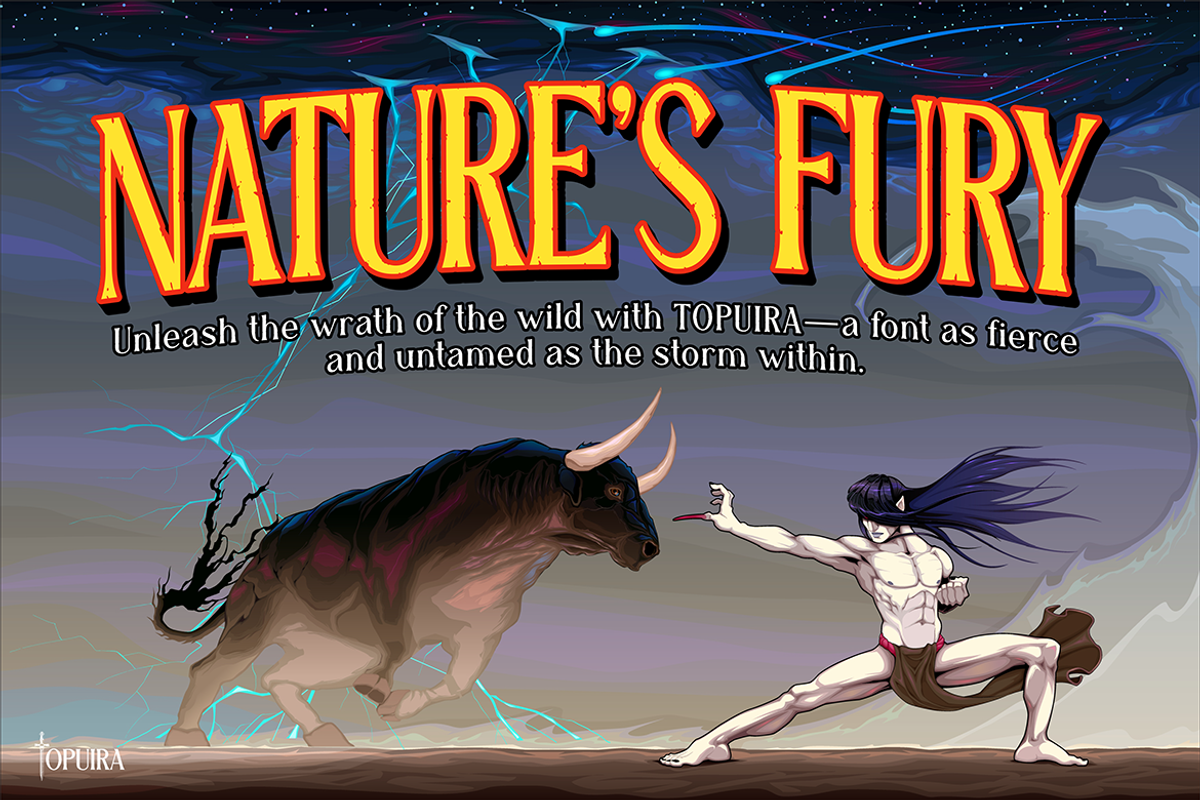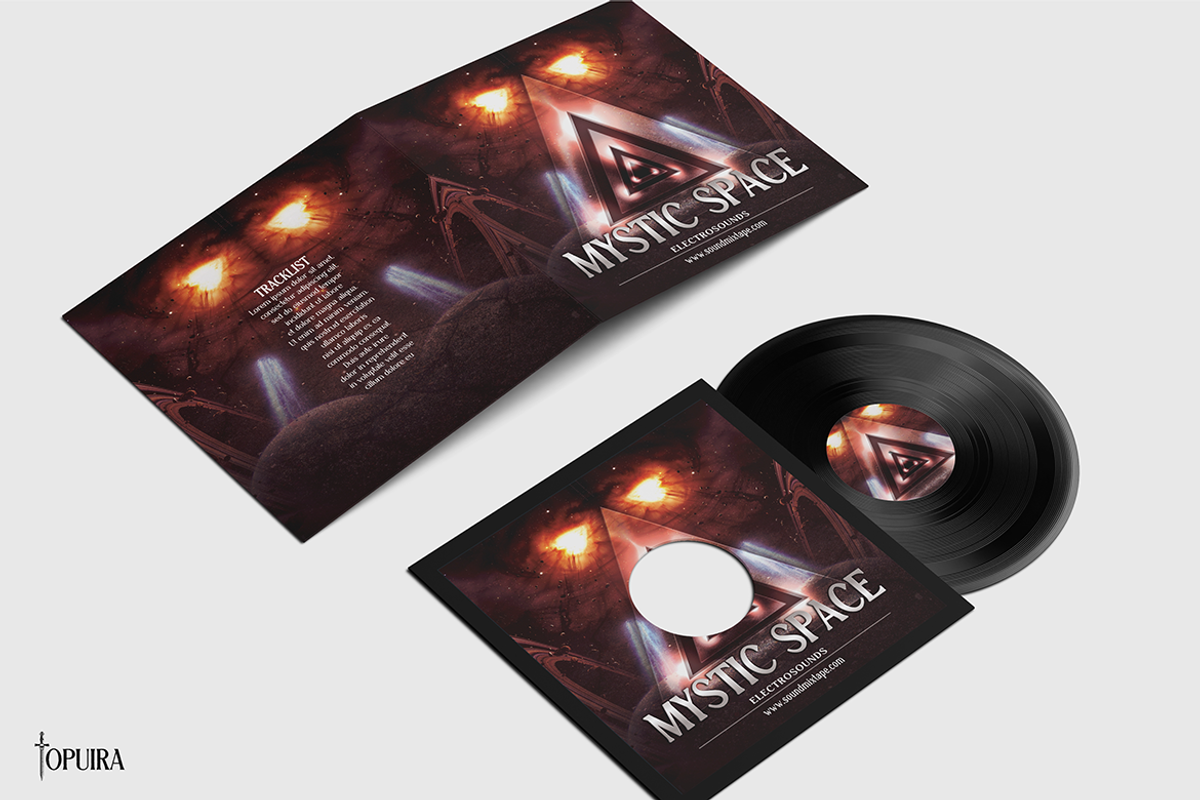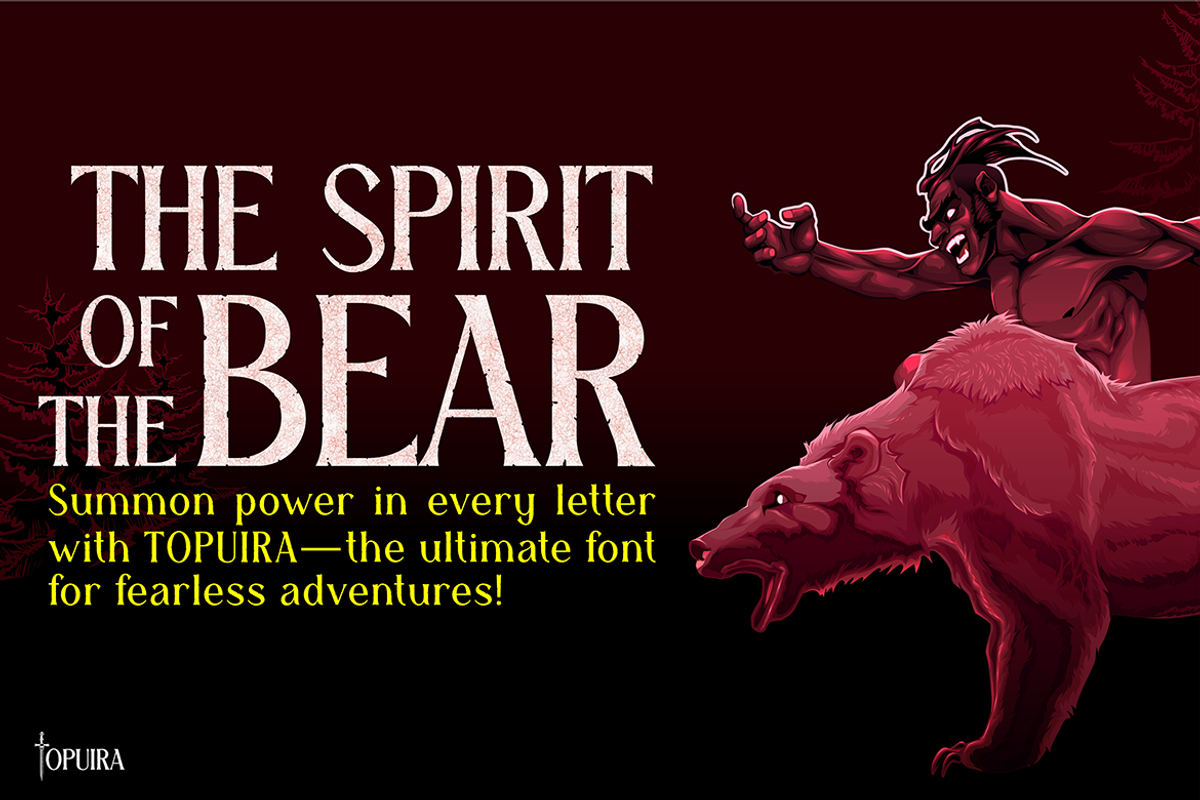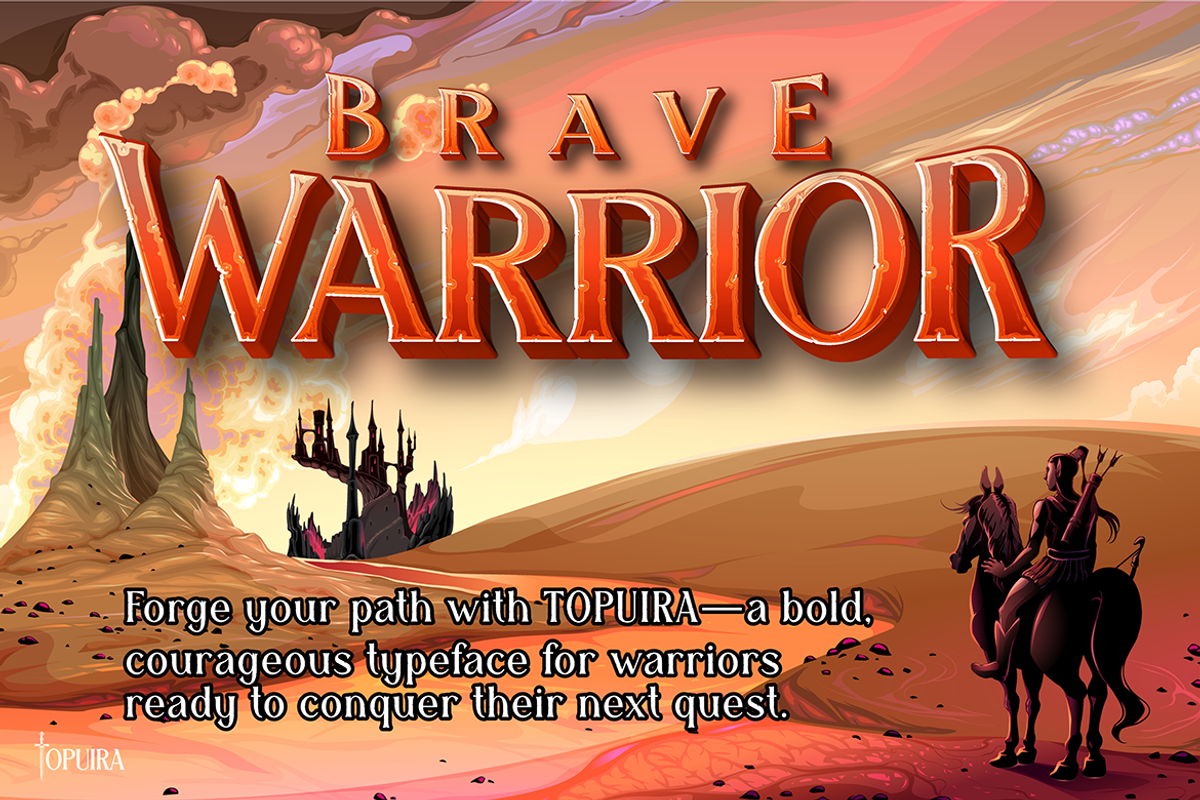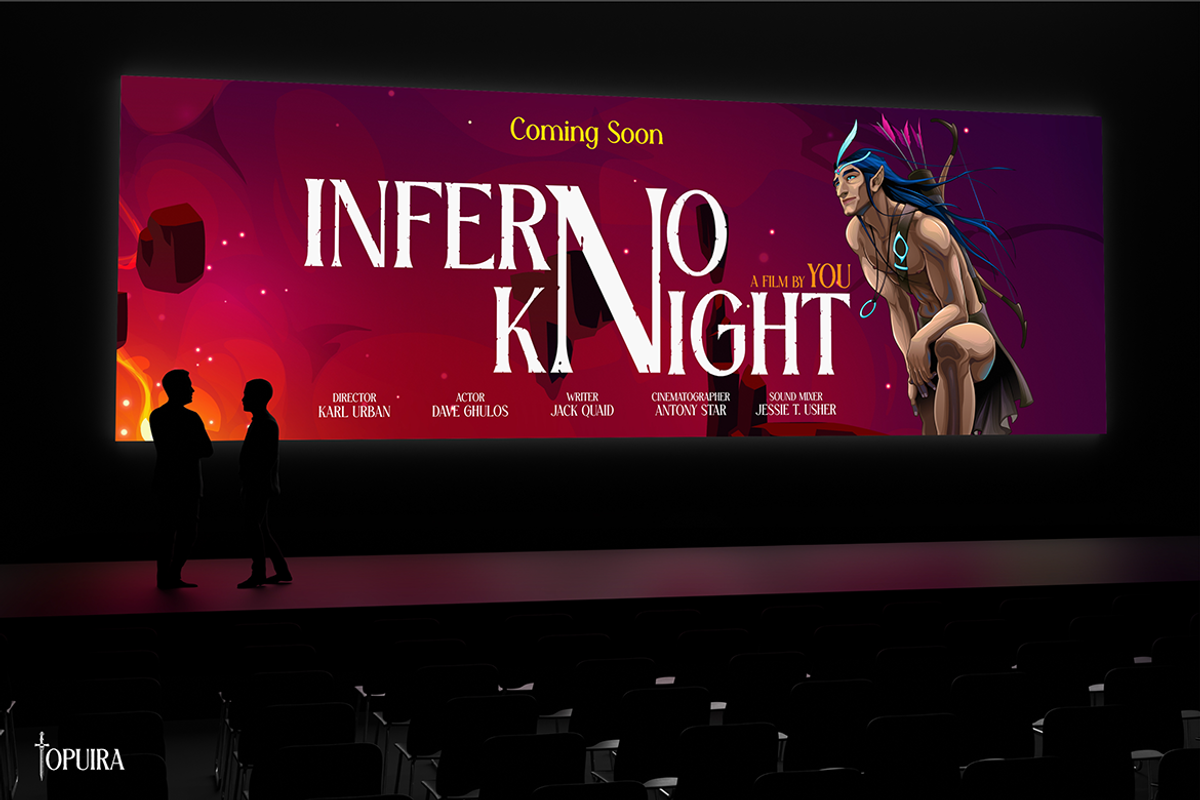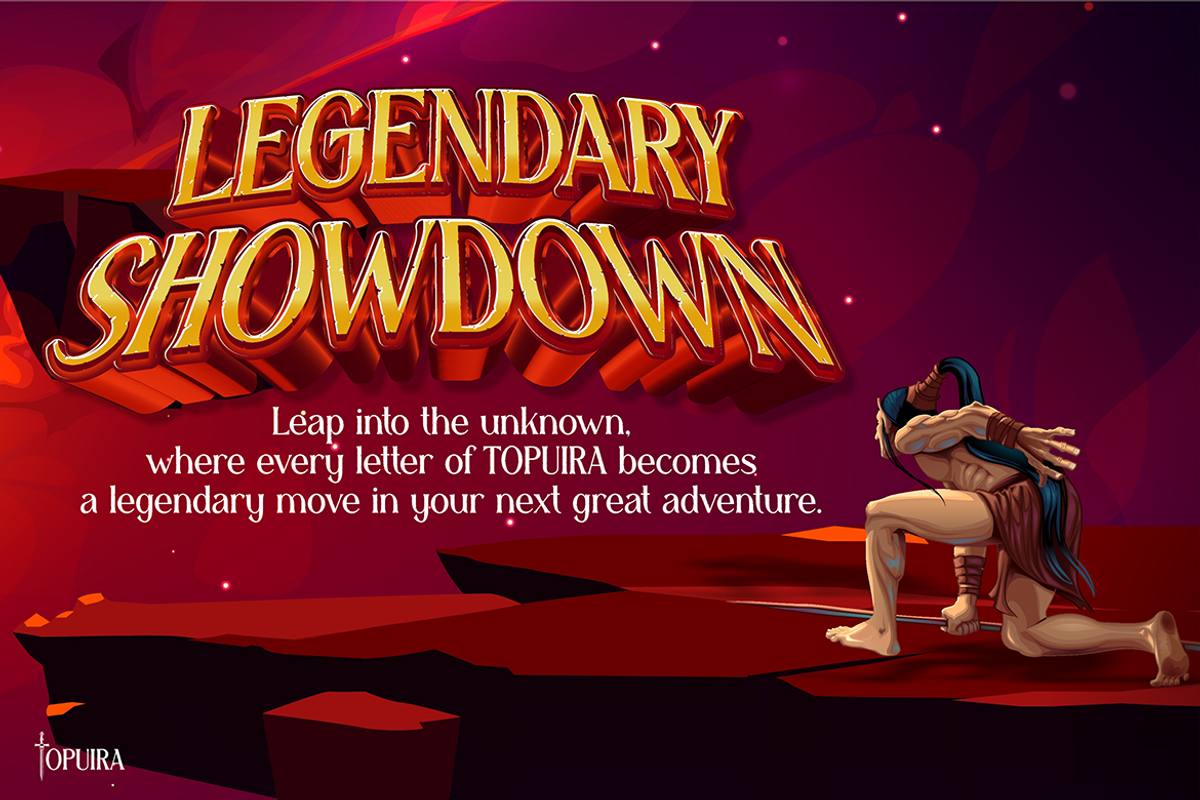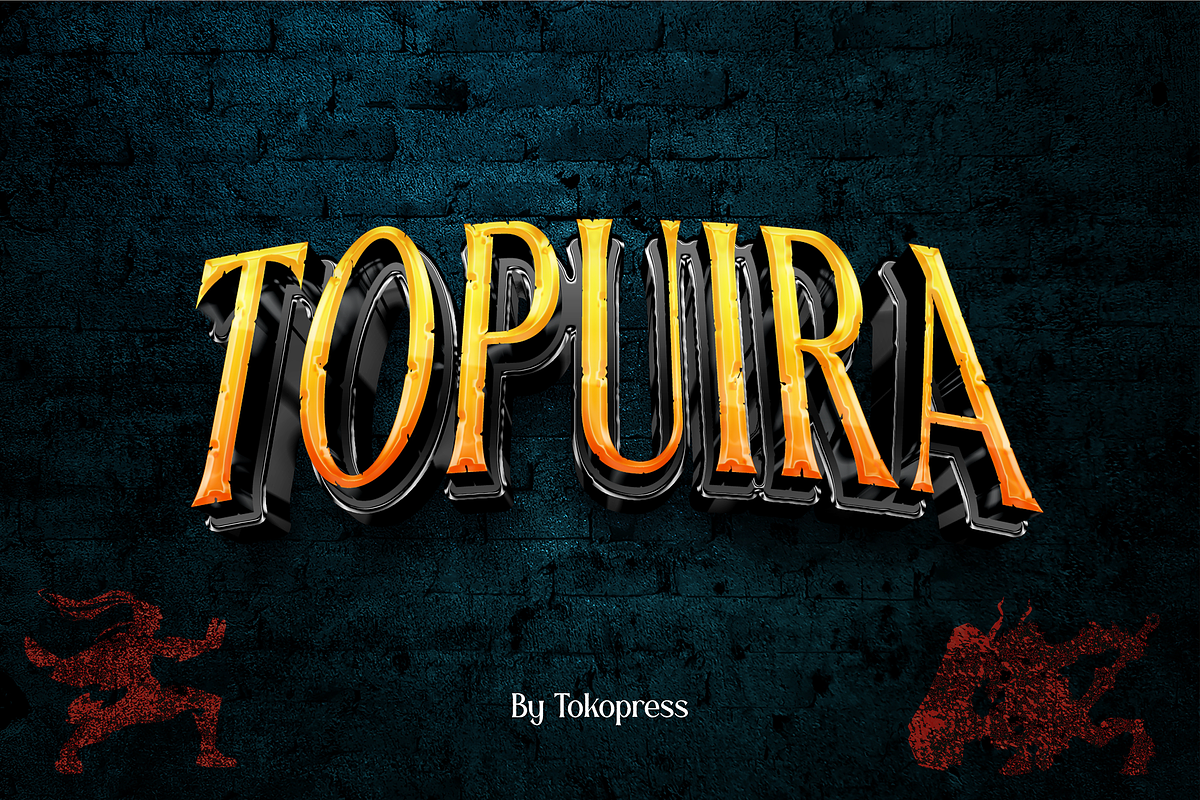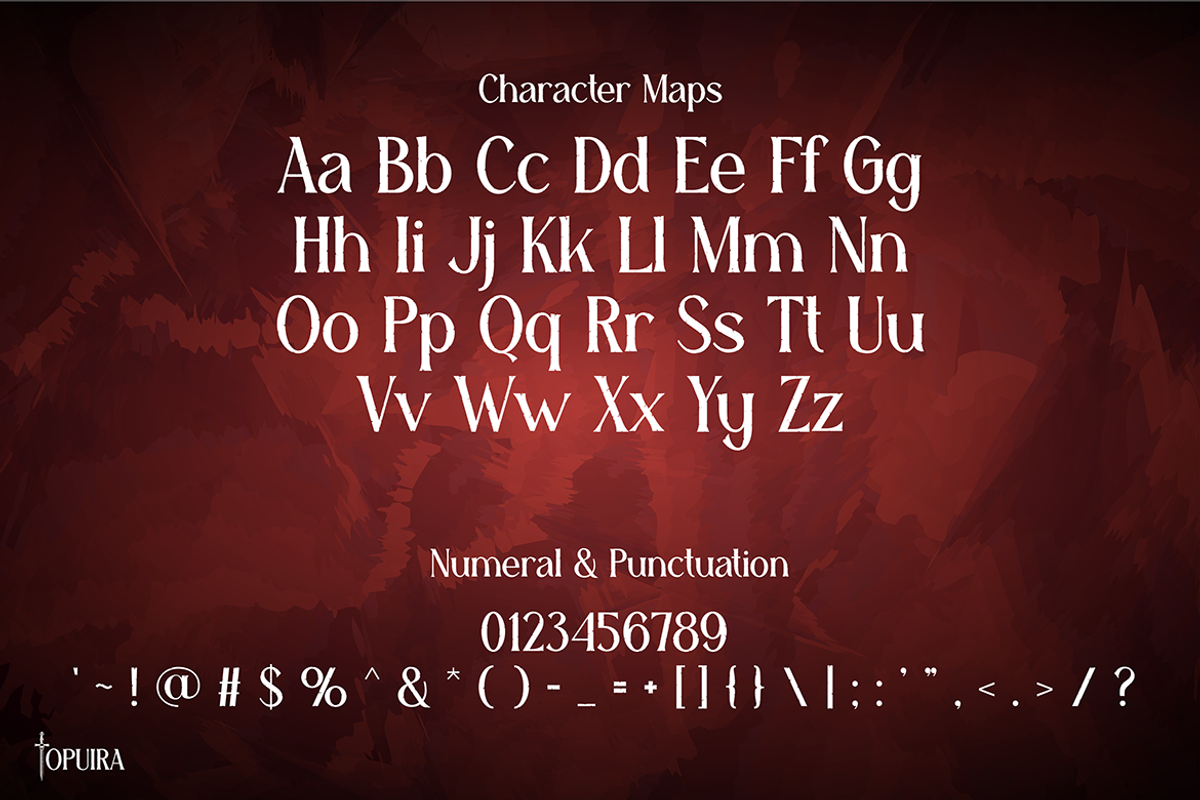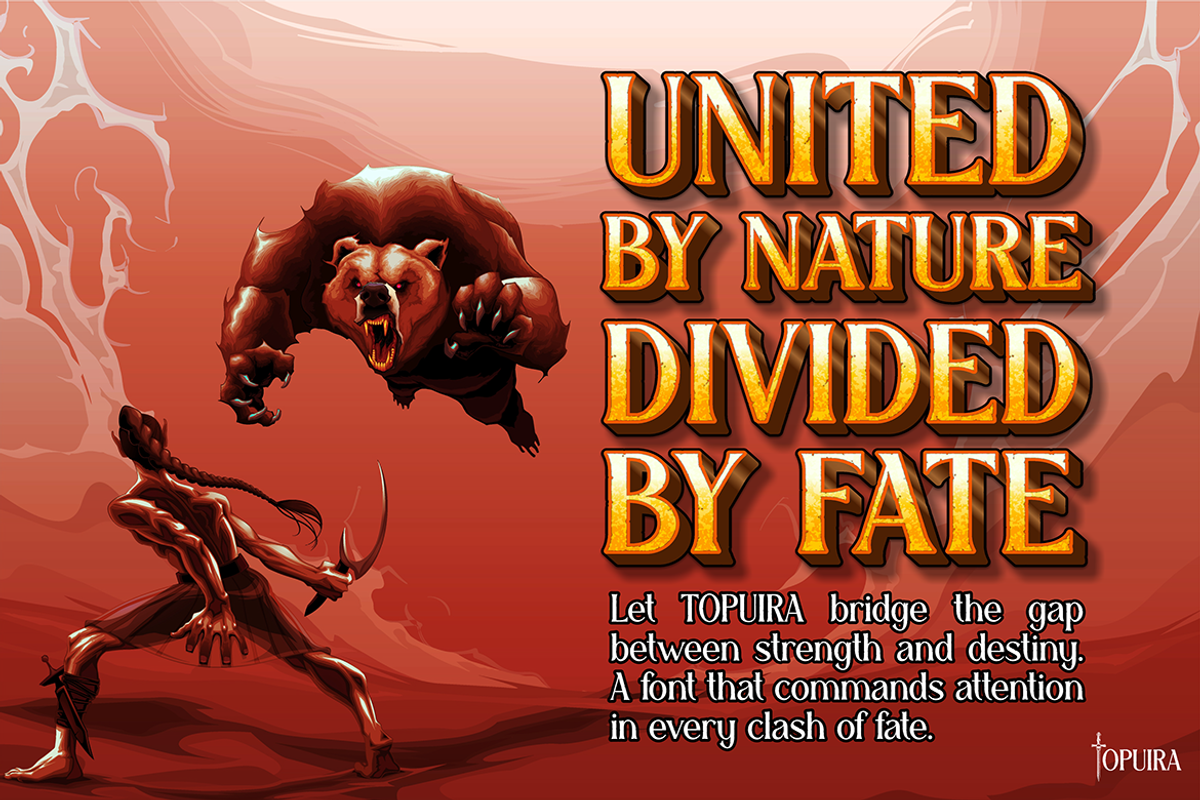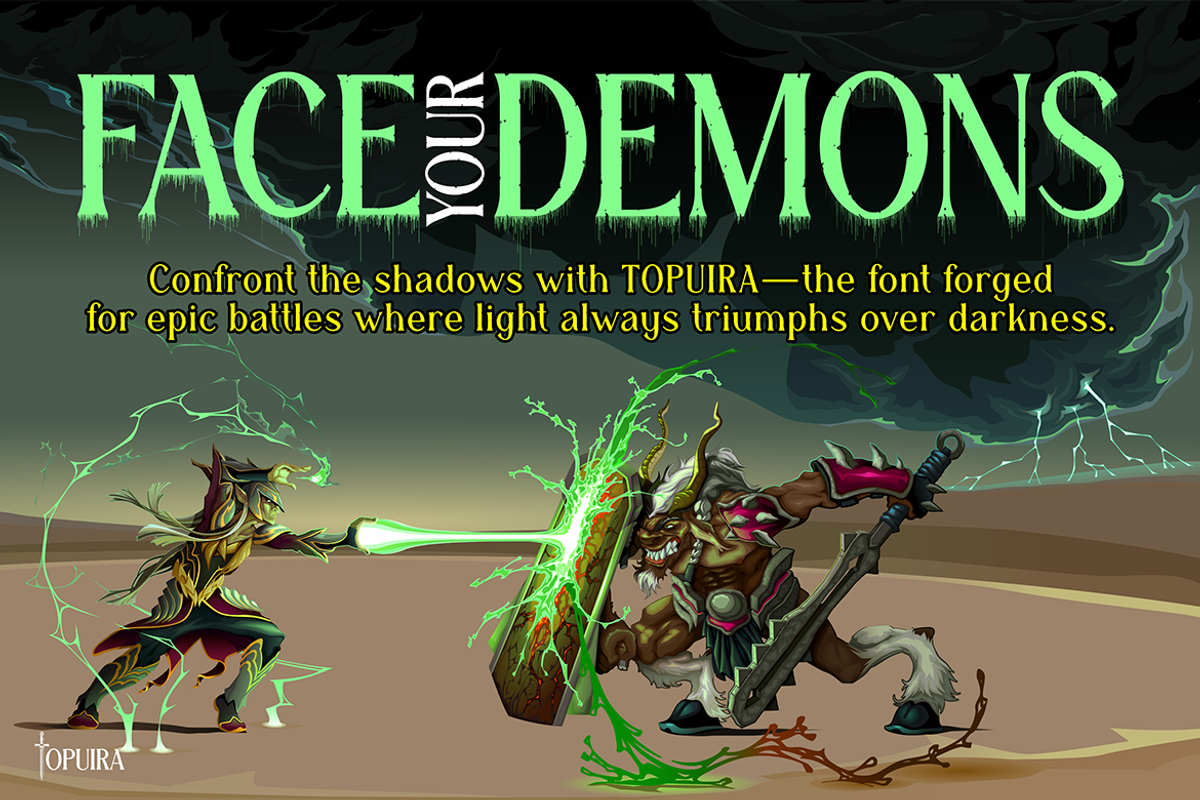
Topuira
Topuira - The Adventure Awaits
Introducing Topuira, a font crafted to transport your imagination to epic realms of adventure!
With its dynamic shapes and bold characters, Topuira embodies the spirit of exploration and thrilling action.
Perfect for gaming projects, posters, or any creative content, this font will bridge the gap between you and unforgettable stories. Let every word resonate with excitement using Topuira!